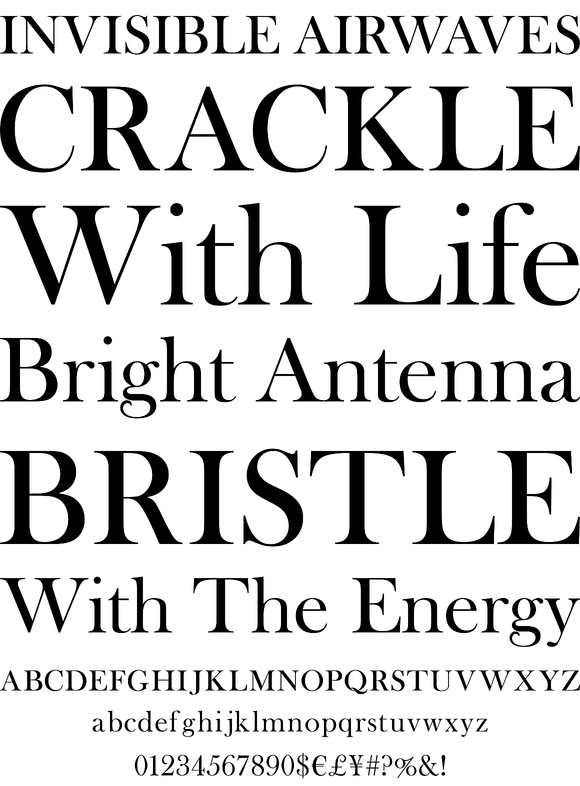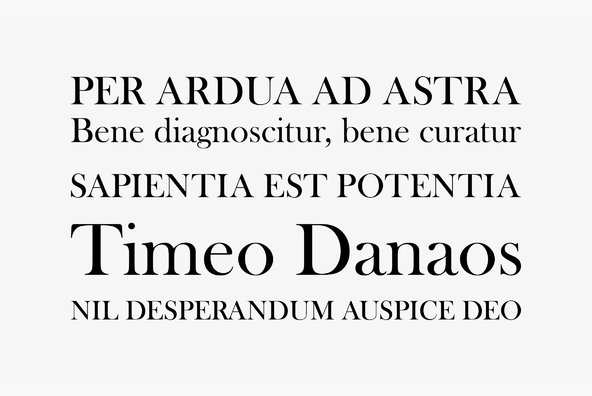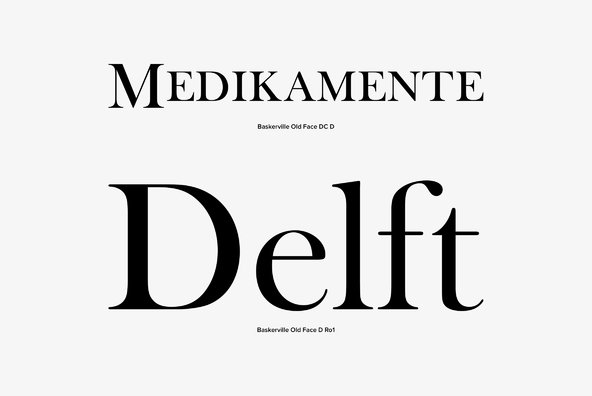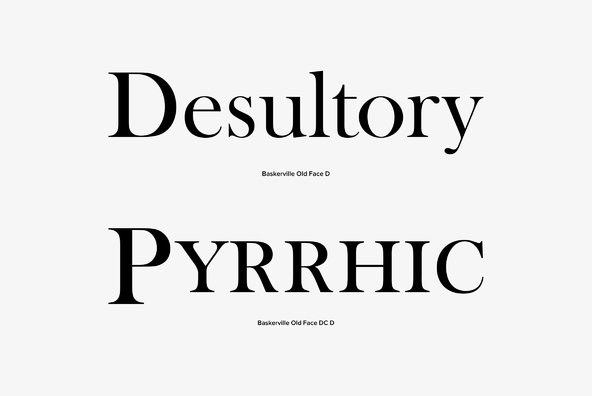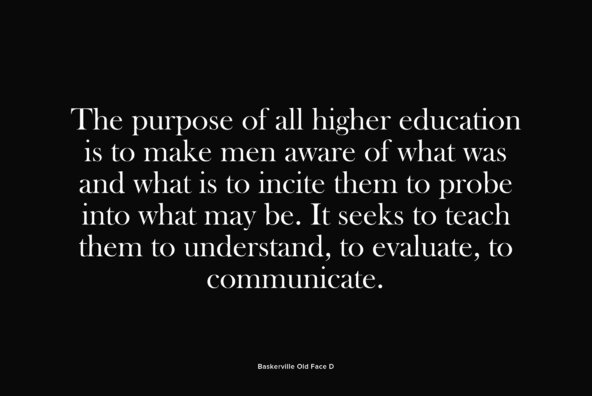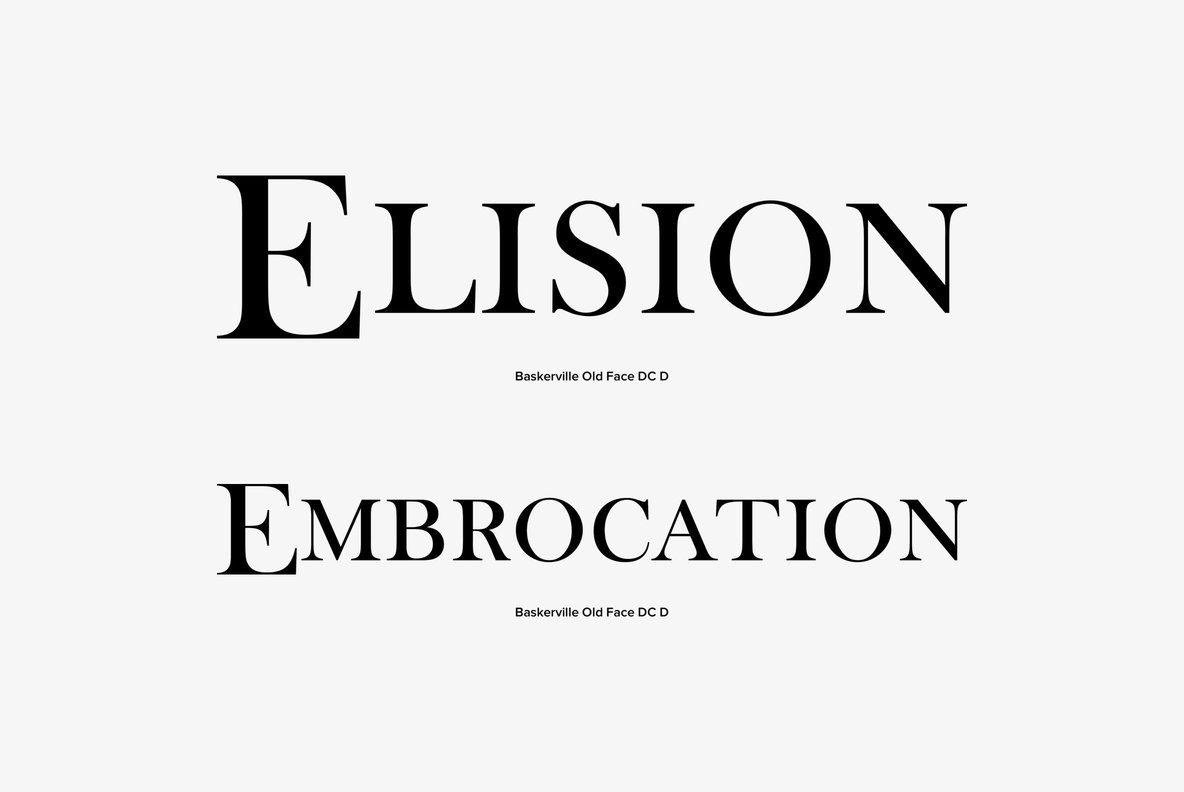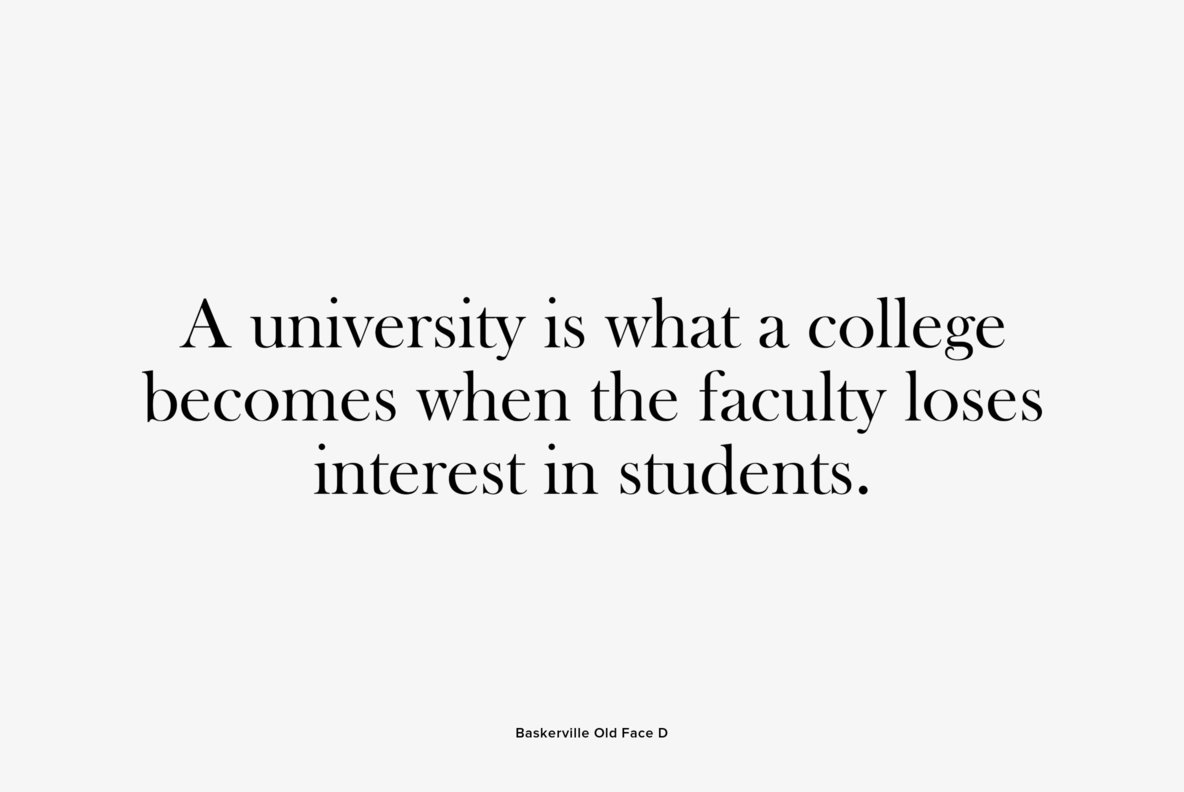
Baskerville Old Face
Baskerville Old Face is a classic and elegant serif font, originally designed by John Baskerville in 1768. Baskerville Old Face contains West, East, Turkish, Baltic, Romanian language support.